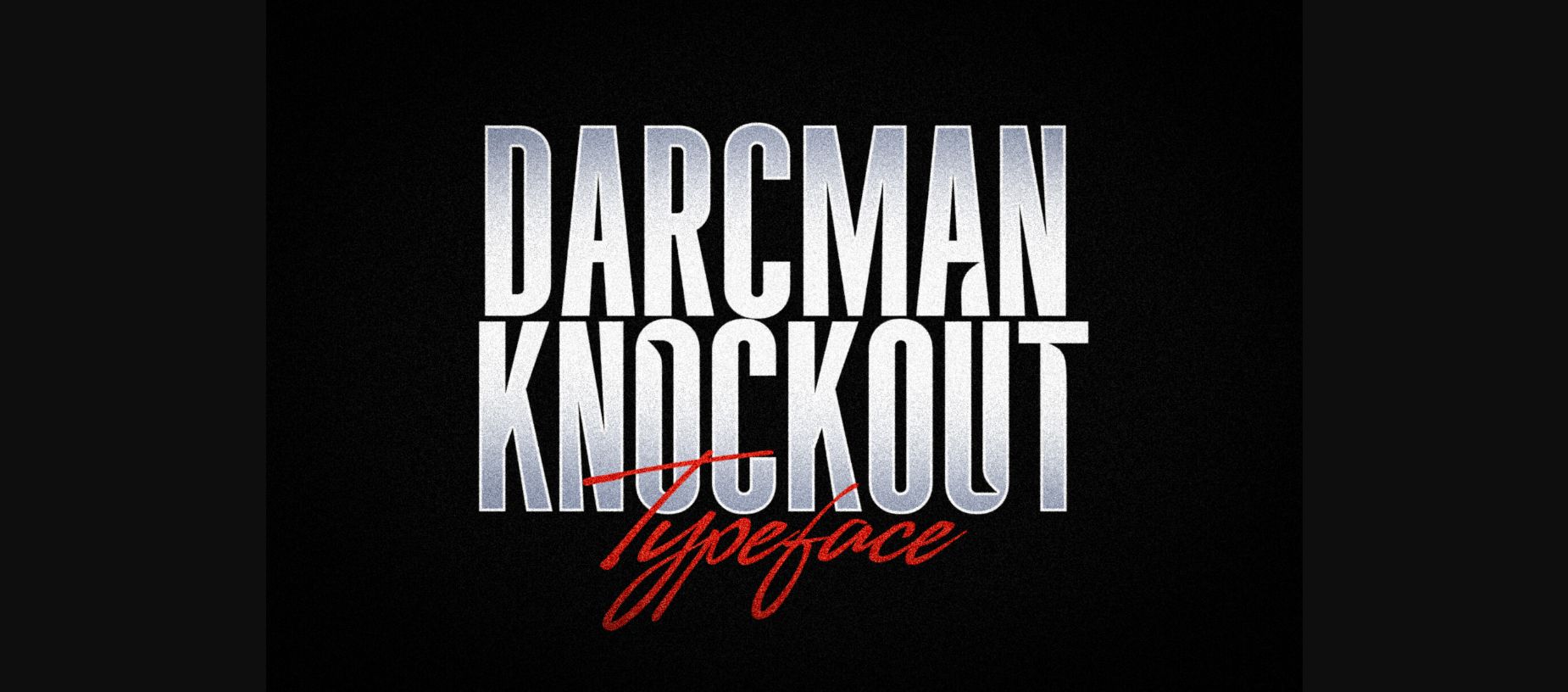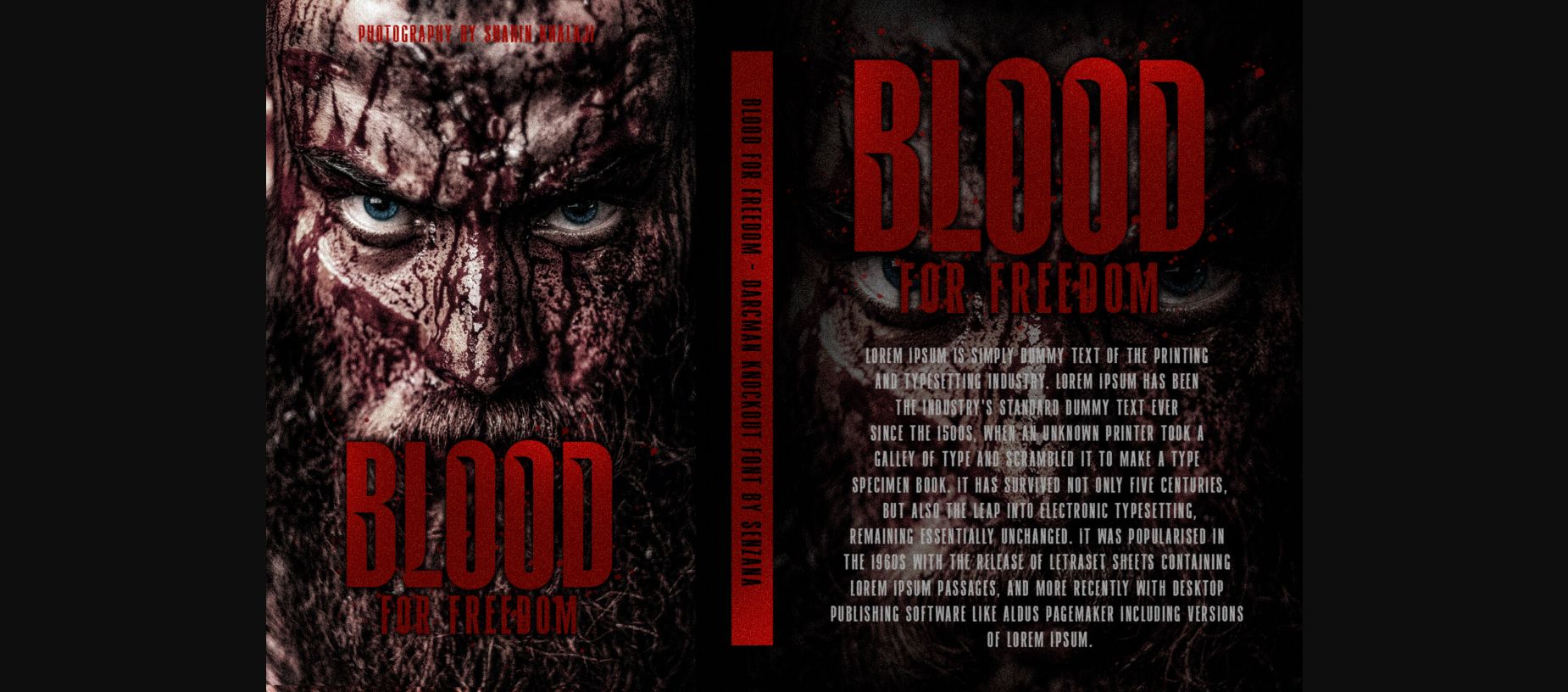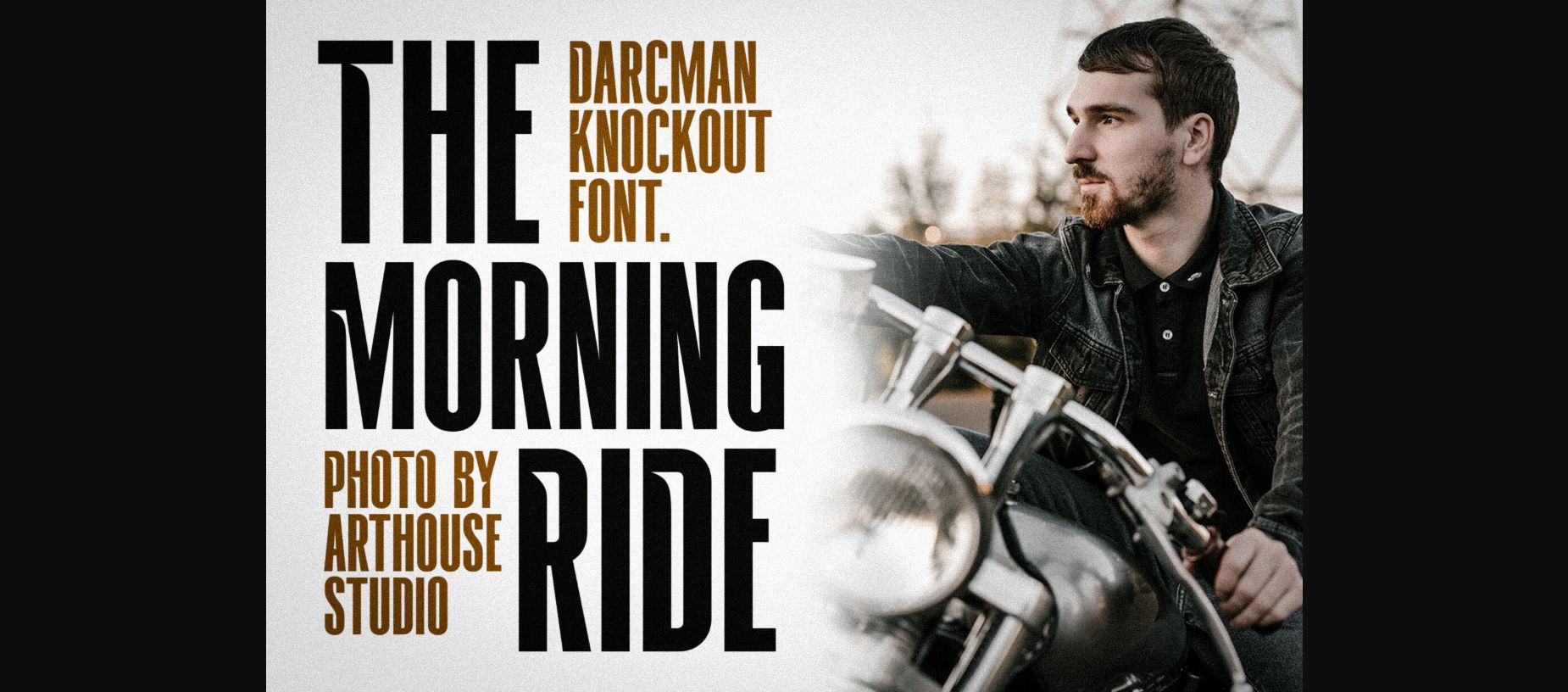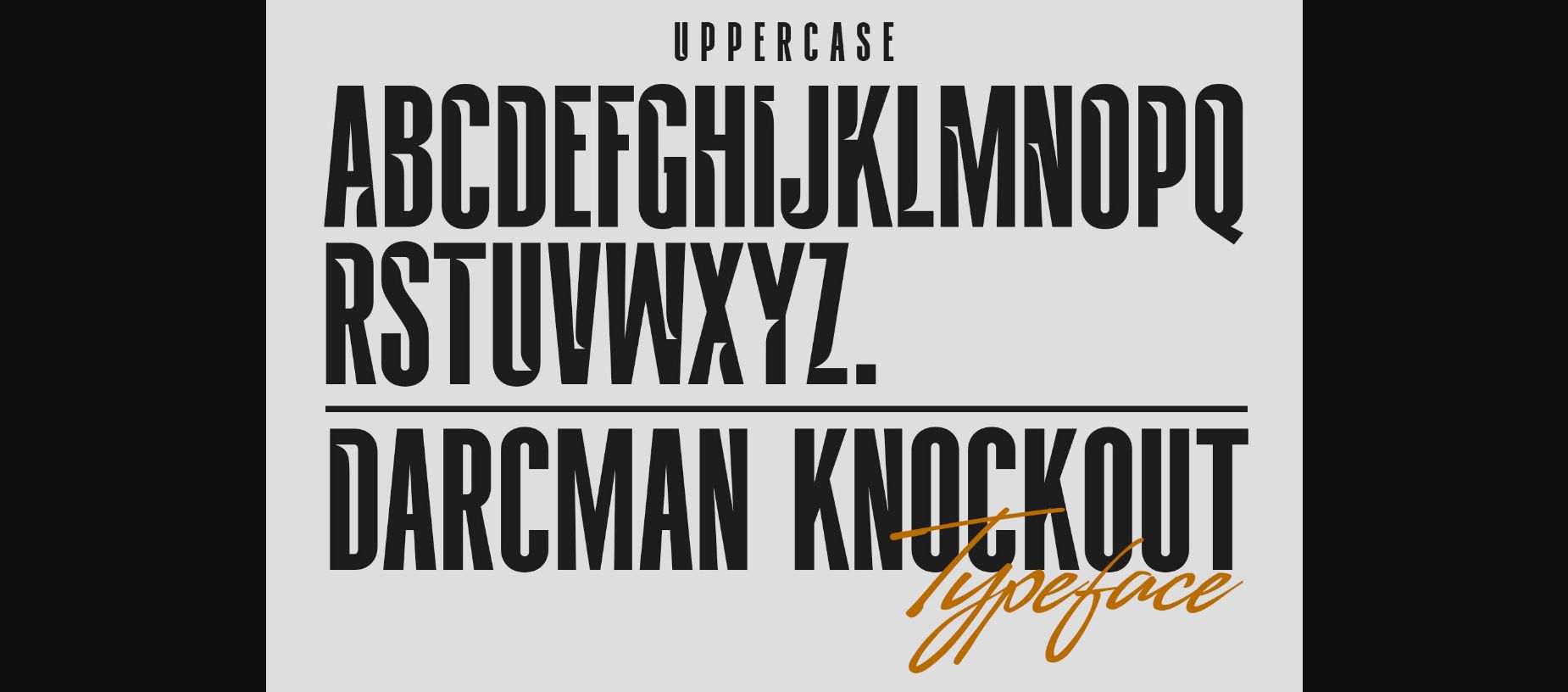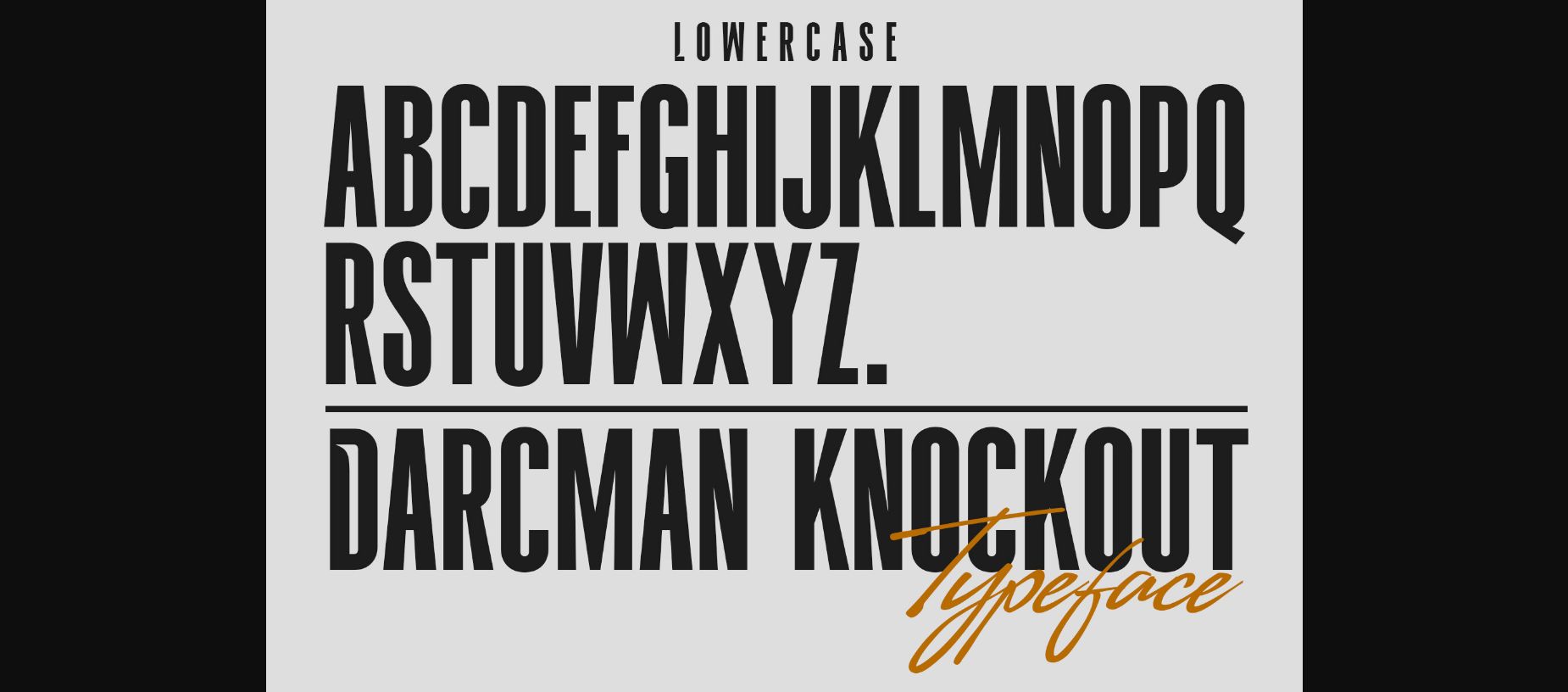
Darcman Knockout Font
About Darcman Knockout Font
Darcman Knockout is an elegant and bold sans serif font. Fall in love with its incredibly versatile style and use it to create gorgeous wedding invitations, beautiful stationary art, eye-catching social media posts, and much more!